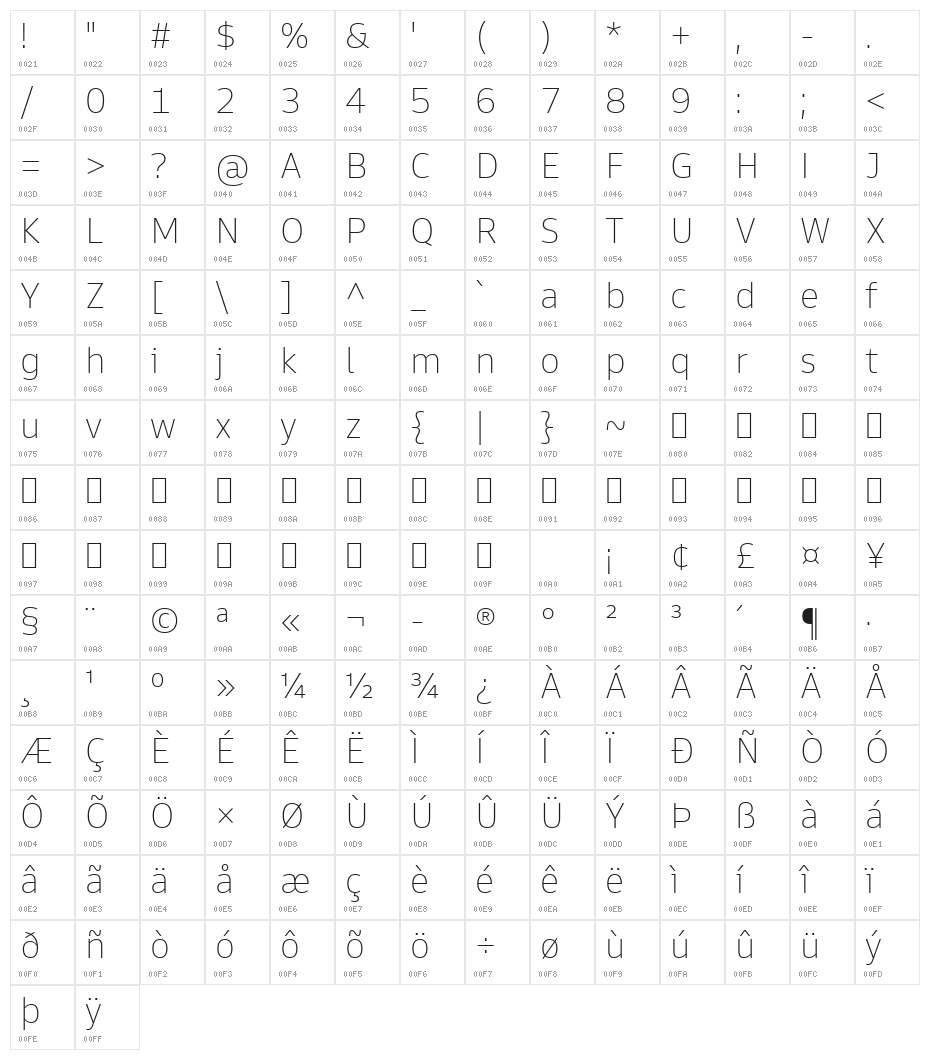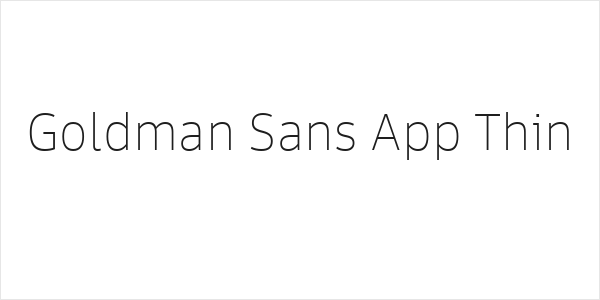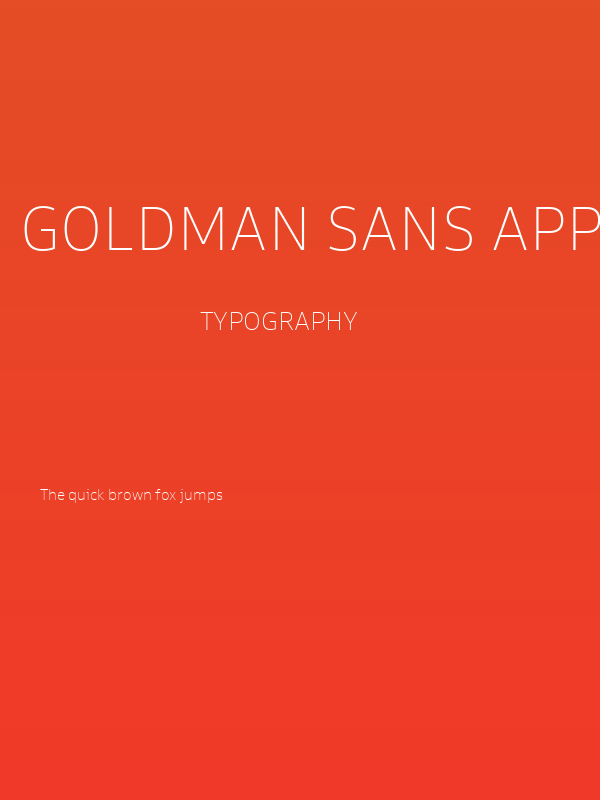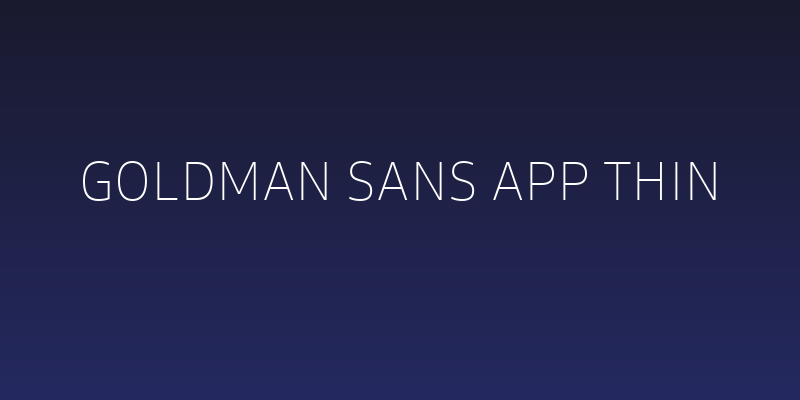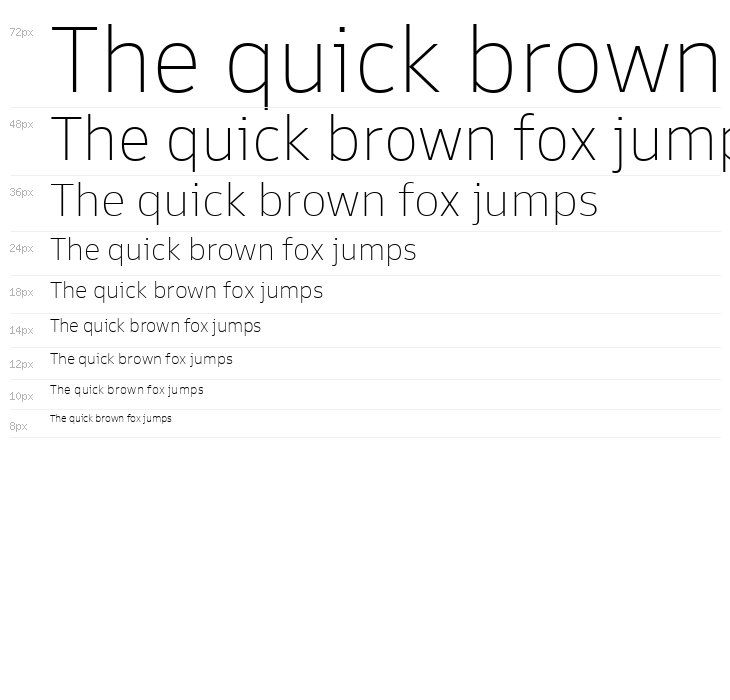
Goldman Sans App Thin Font
Goldman Sans App Thin Description
This font features a clean and modern sans-serif design with a thin weight, offering a sleek and minimalist appearance. The characters are evenly spaced with a normal width, providing excellent readability. The strokes are consistent and uniform, with low contrast, making it suitable for digital interfaces and print. The uppercase and lowercase letters maintain a harmonious balance, while the numerals and special characters are clearly defined, enhancing the font's versatility.
Proposed ProjectsIdeal for digital interfaces, minimalist branding, corporate materials, and modern web design.